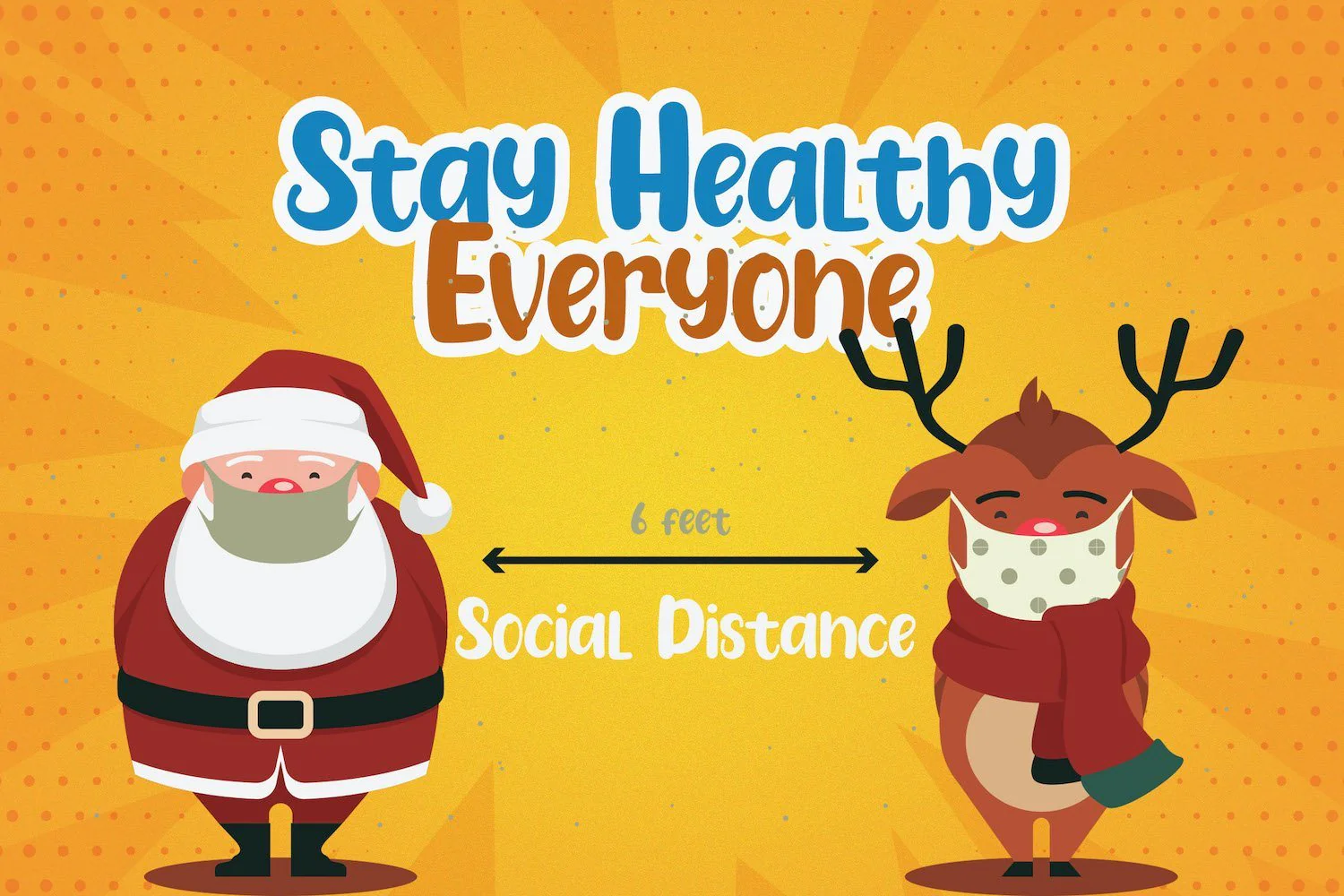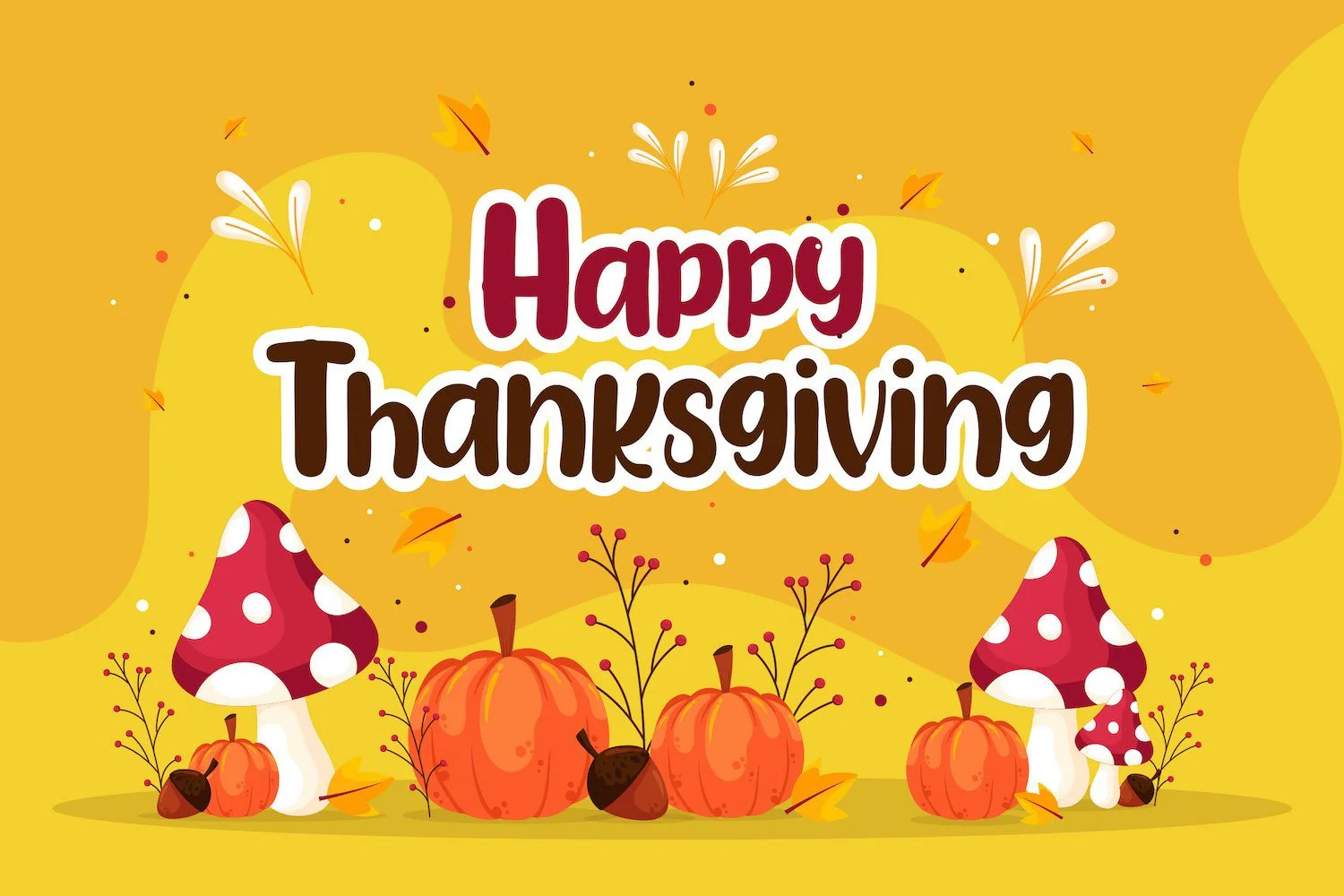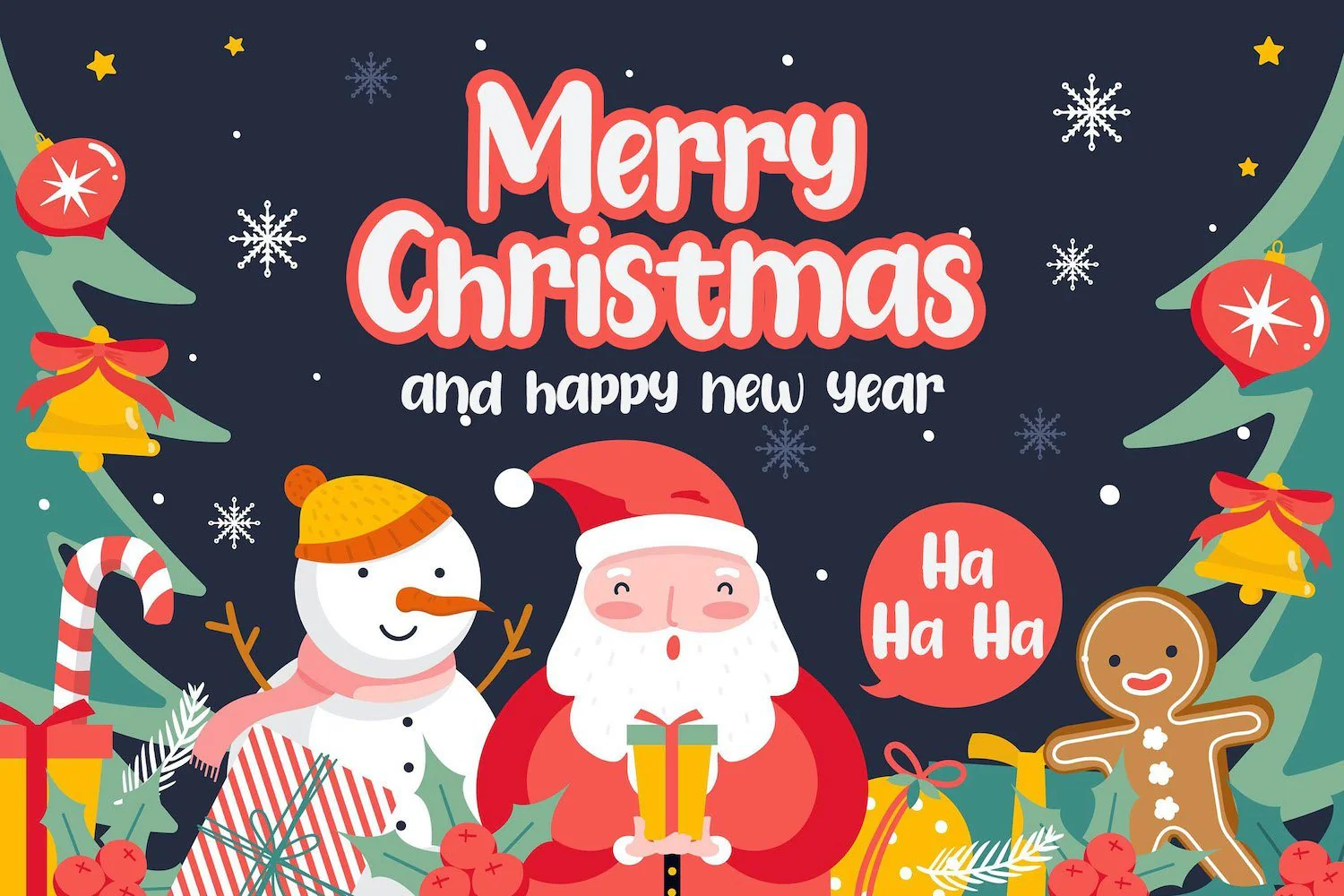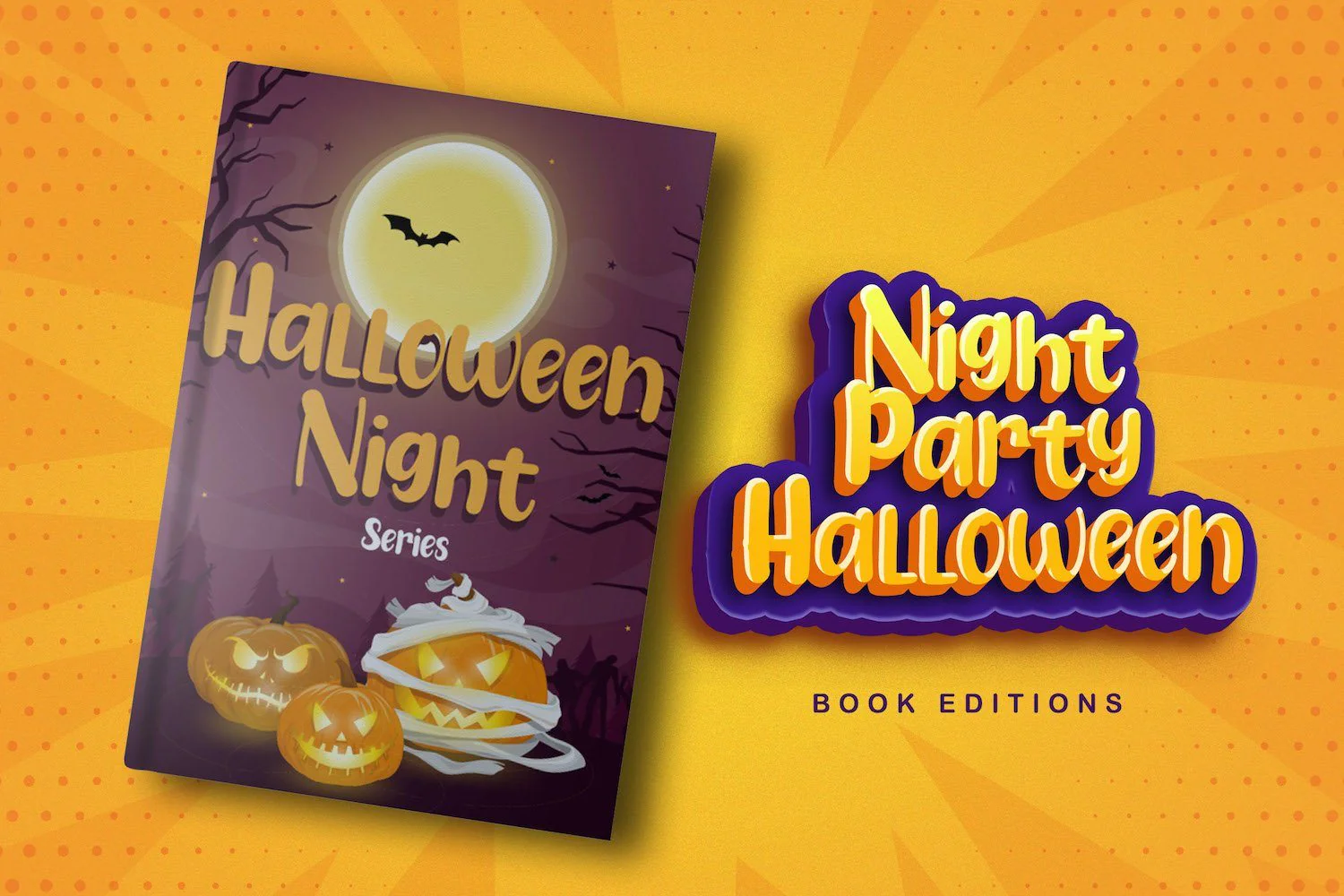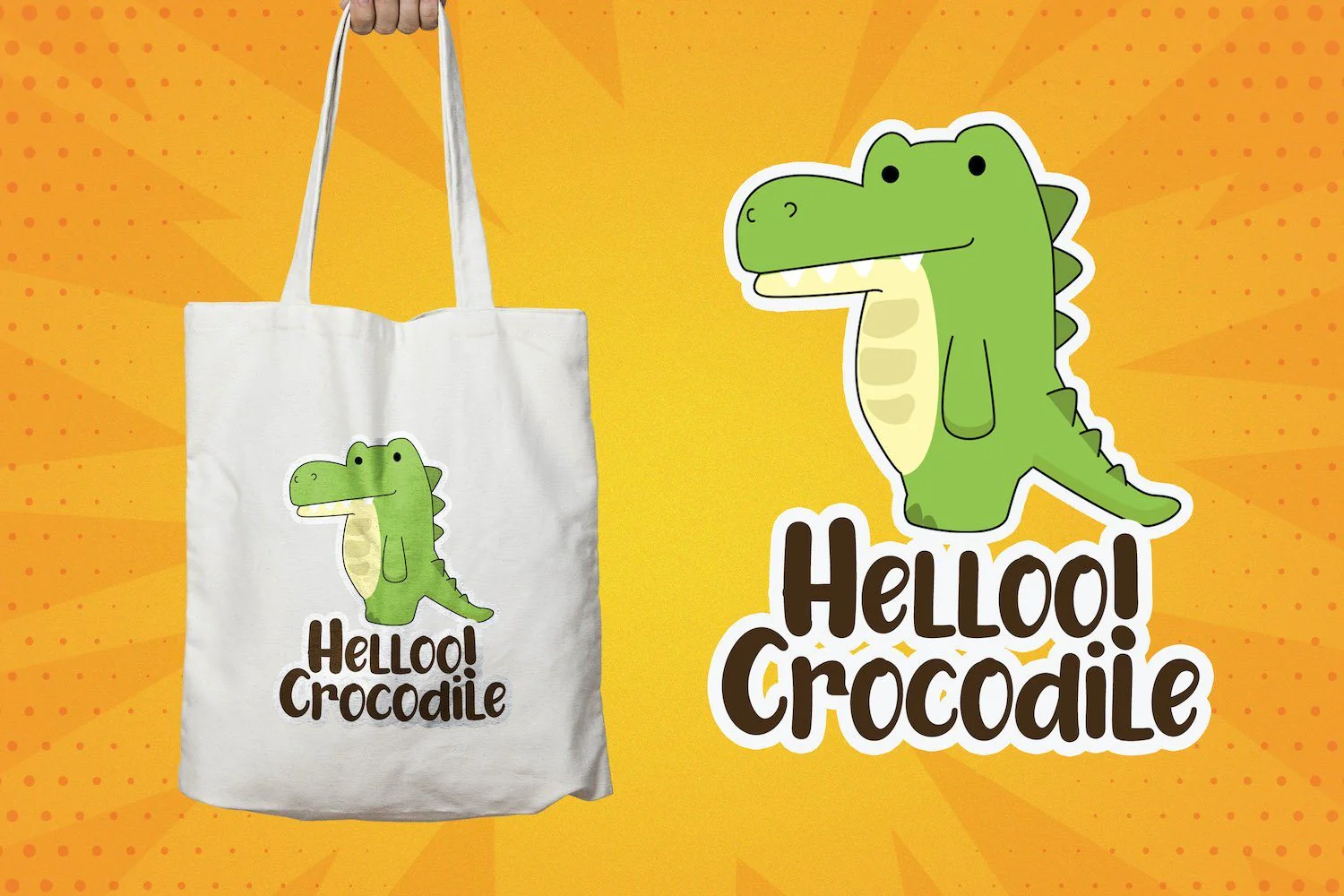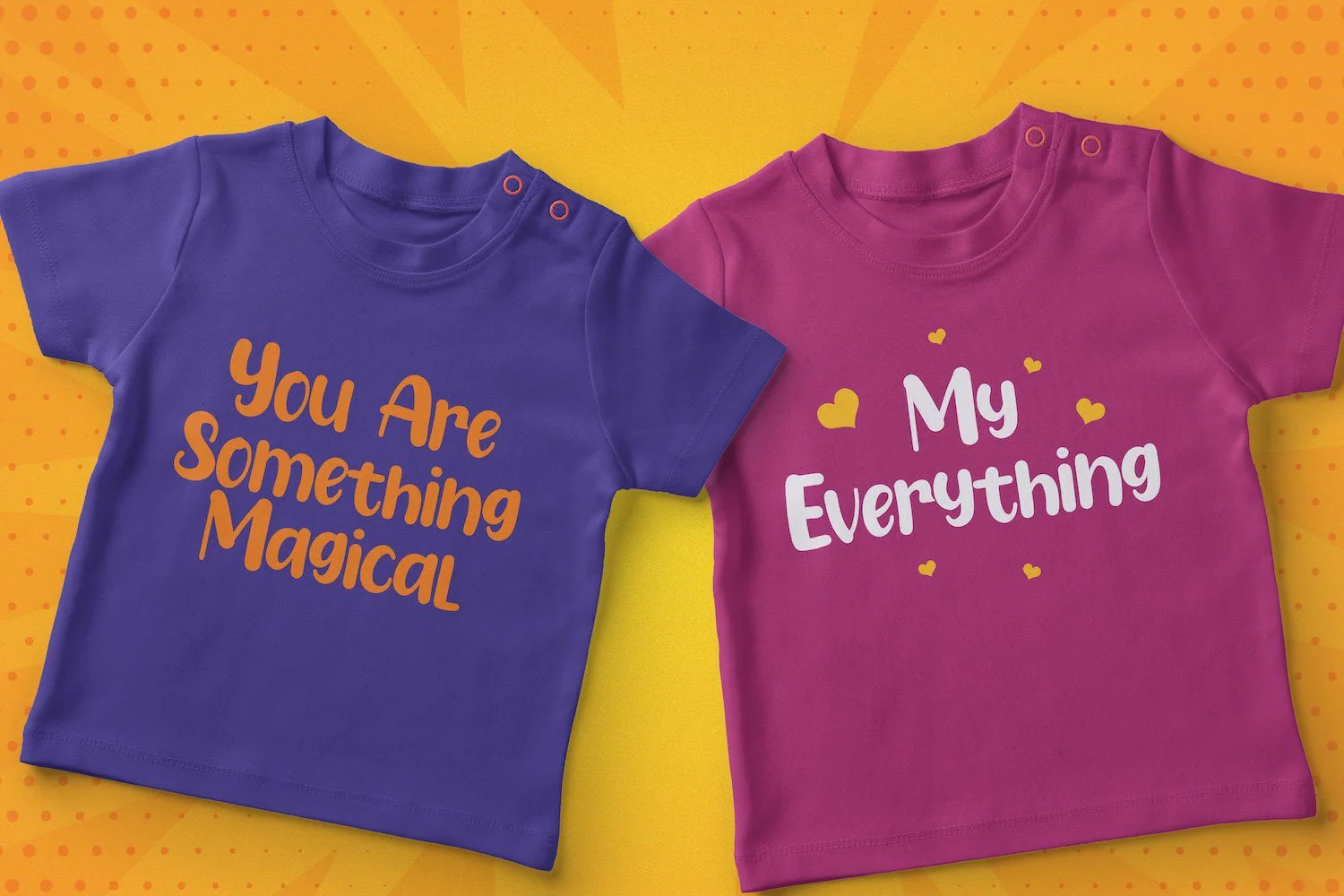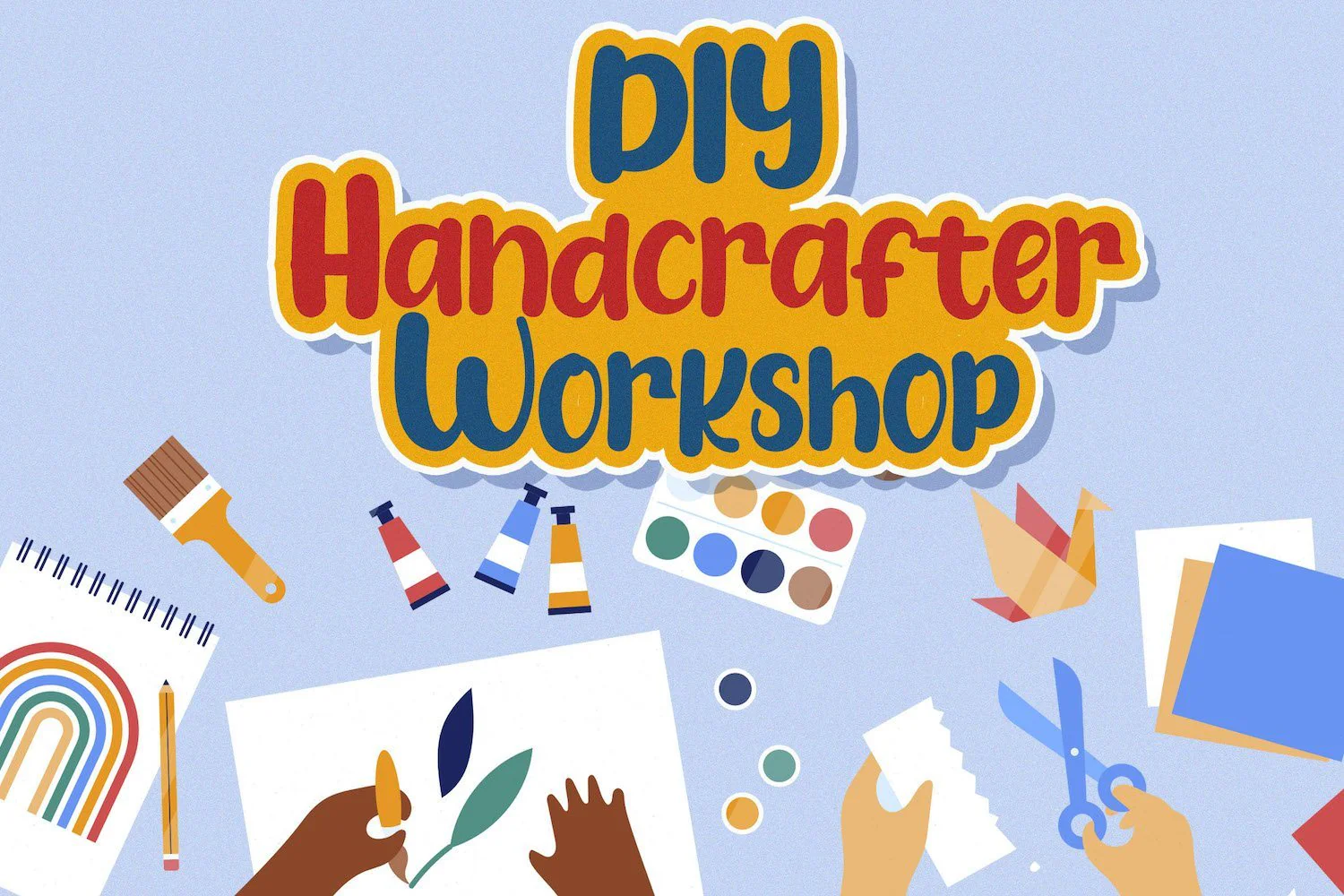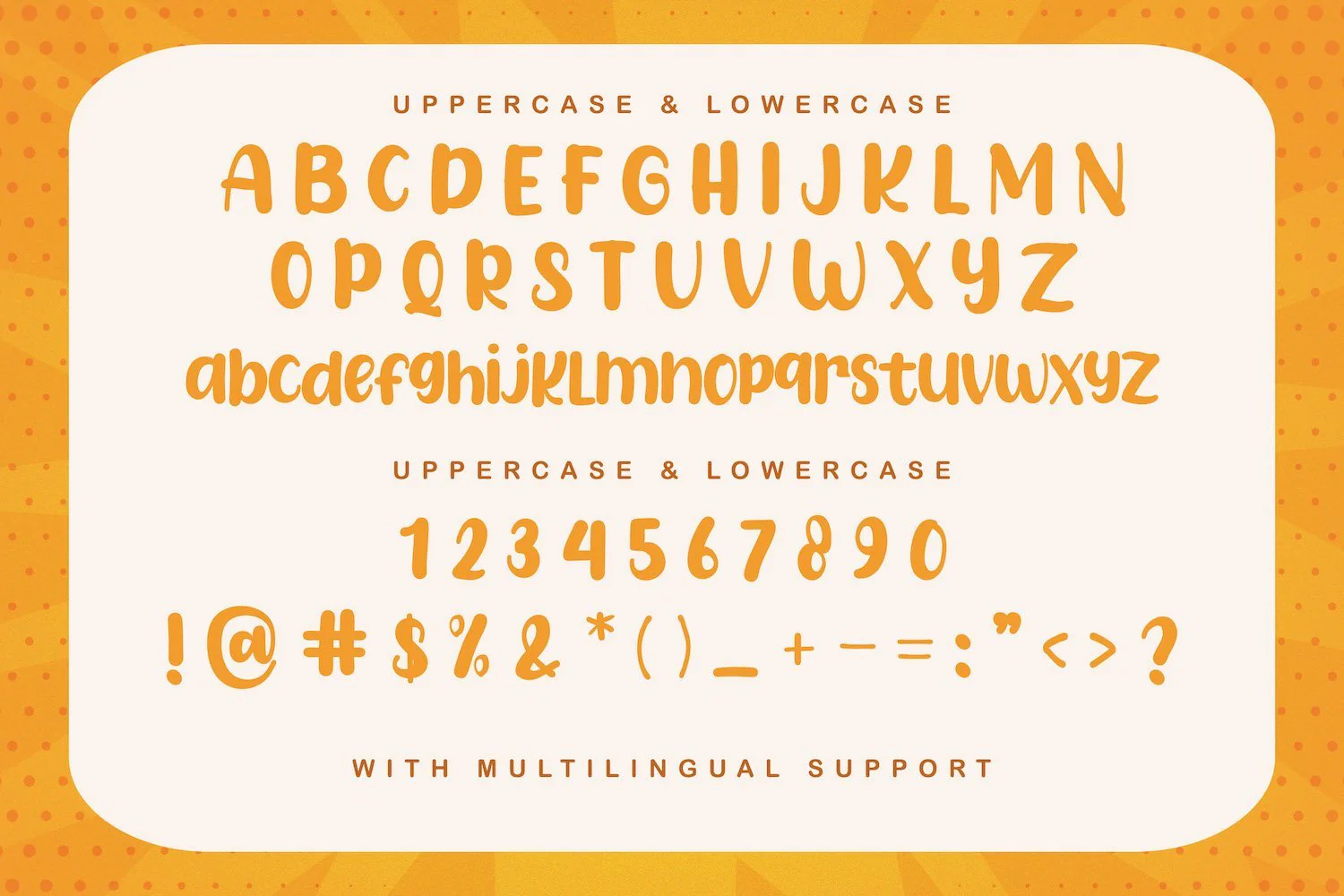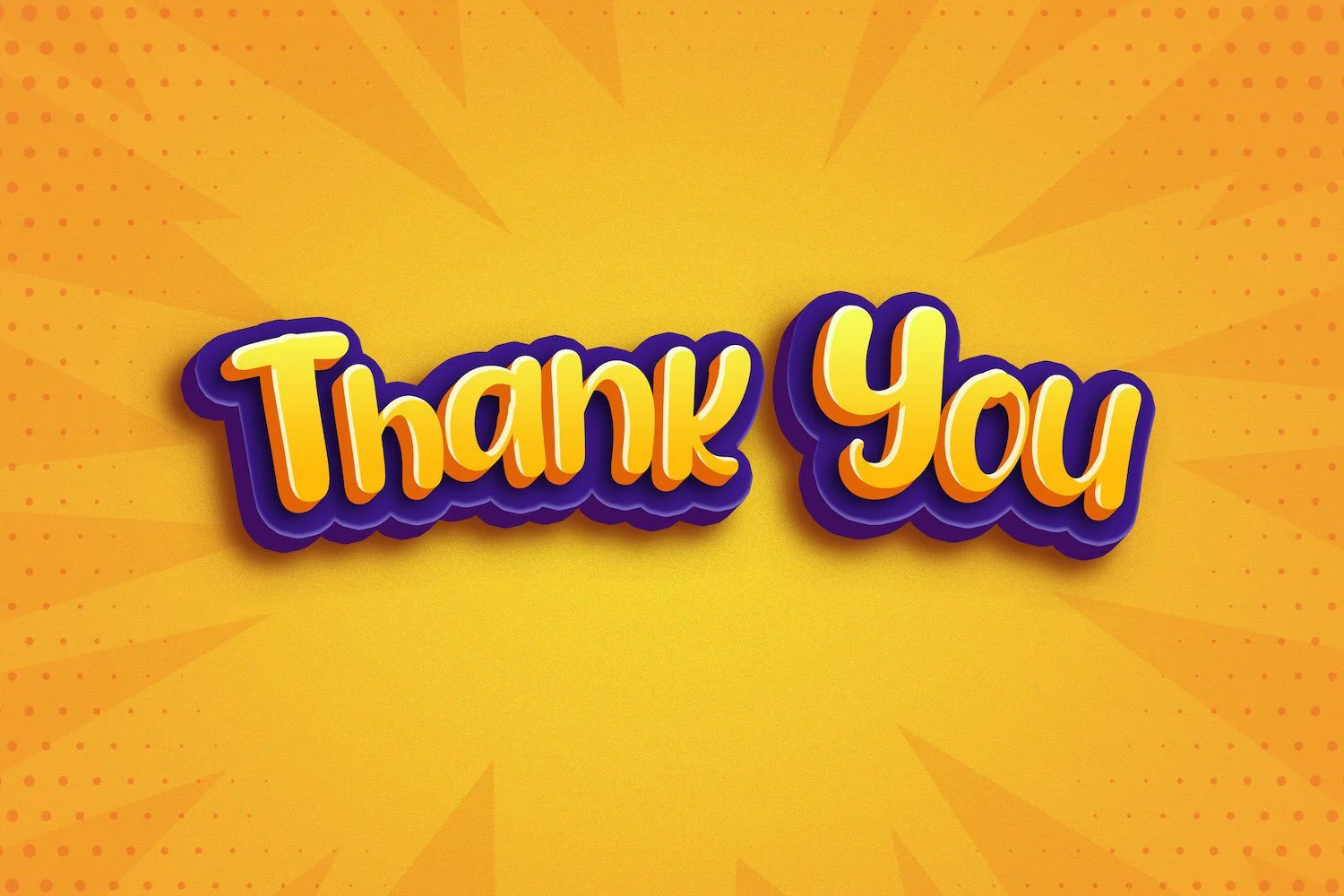
Sandy Kids - Playful Display Font
Introducing Sandy Kids - Playful Display Font
Sandy Kids is a fun and chunky lettered display font. Playful and fresh, this font will be a hit for each of your children or school projects!
Introducing Sandy Kids - Playful Display Font
Sandy Kids is a fun and chunky lettered display font. Playful and fresh, this font will be a hit for each of your children or school projects!